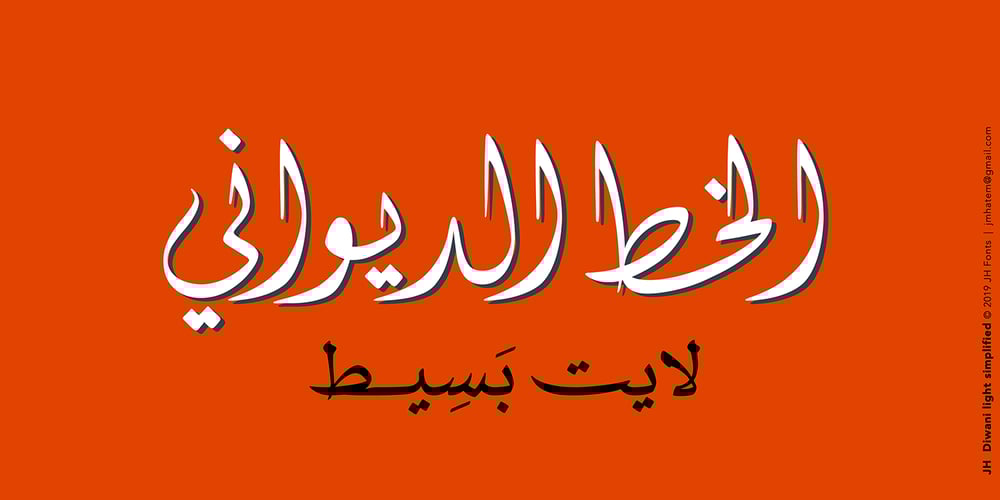
JH Diwani Simplified Light
JH Diwani Simplified Light font
JH Diwani Simplified Light Font Family was designed by Joe Hatem and published by JH Fonts. JH Diwani Simplified Light contains 1 styles and family package options. JH Diwani Simplified Light is an advanced Arabic font simulating the Diwani Calligraphy with its finest details. Its typical usage: Wedding / greeting cards, headlines, poetry, and books. Please note that Arabic Kashida is not available for this font.